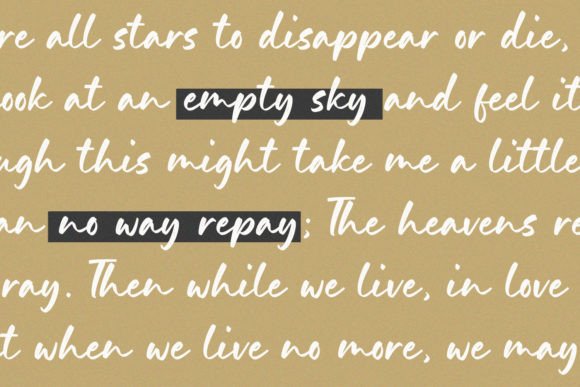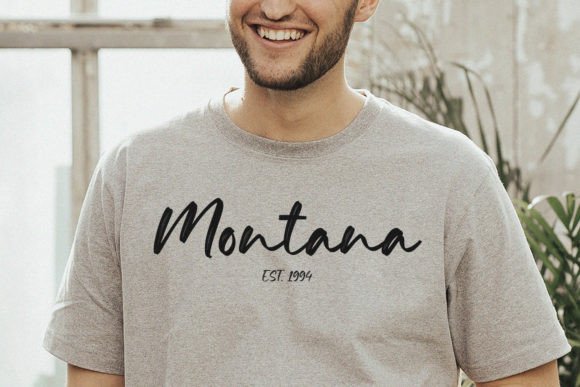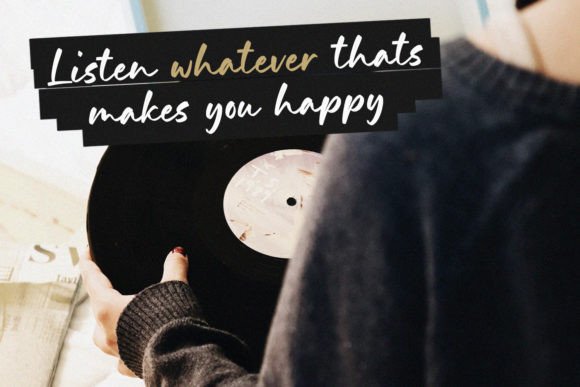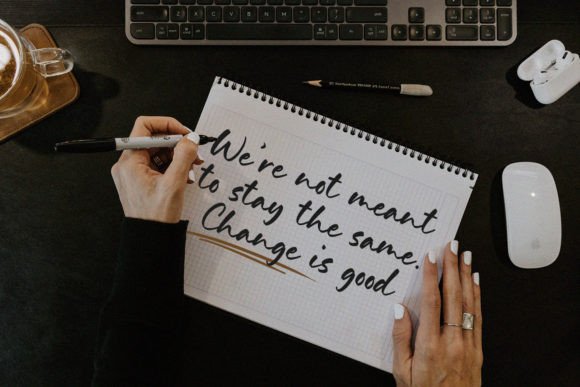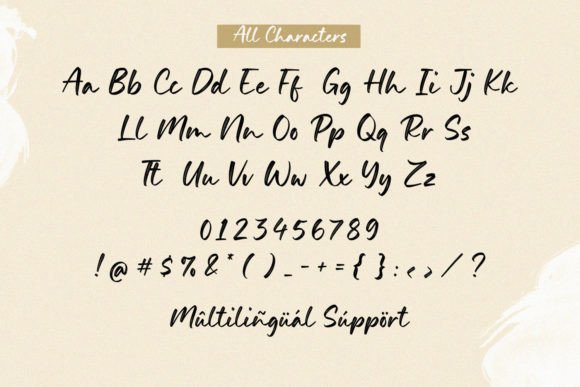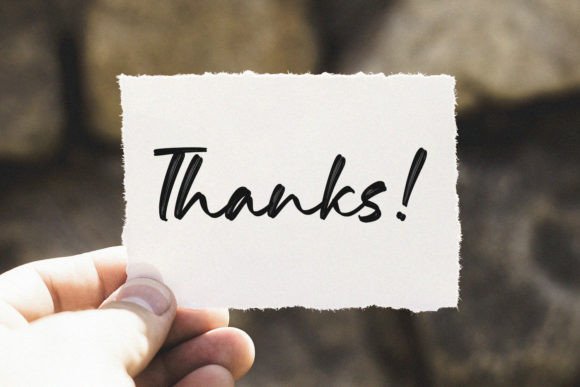
Unleash the Warmth of Summer with the Bright Summer Font
As a designer, there’s something special about capturing the essence of a season in your work. For me, it’s the feeling of walking outside on a warm summer morning, the sun shining bright, and the air filled with the sweet scent of blooming flowers. It’s moments like these that inspire me to create typography that embodies the carefree spirit of the season.
That’s why I’m excited to introduce you to the Bright Summer Font, a beautiful handwritten font designed to bring a touch of warmth and personality to your designs. Whether you’re working on a product packaging project, creating branding materials, or simply want to add a touch of whimsy to your social media posts, this font is sure to delight. With its elegant, cursive script, the Bright Summer Font is a valuable addition to any designer’s toolkit, offering endless possibilities for creative expression.
Bright Summer Font Key Features
• Font Family: Bright Summer Font is a unique, hand-drawn script font designed to evoke feelings of warmth and happiness.
• Character Count: The font family includes over 700 glyphs, including uppercase and lowercase letters, numerals, punctuation, and special characters.
• Unique Characteristics: Bright Summer Font features a fluid, cursive design with subtle variations in letterform and stroke width, giving it a natural, handwritten feel.
Bright Summer Font Review
As a designer, I’ve had the chance to play around with the Bright Summer Font, and here’s my honest take.
• Unique and Quirky: The Bright Summer Font has a distinct, carefree vibe that’s perfect for summer-themed projects or anything that needs a fun and playful touch.
• Customization Options: The font offers a range of styles and variations, making it easy to customize to fit your specific design needs.
• Legibility: Despite its playful nature, the Bright Summer Font remains highly legible, even at smaller font sizes.
• Limited Professional Use: While the Bright Summer Font is great for casual or creative projects, it might not be the best choice for more formal or professional designs, where a more traditional font is often preferred.
• Overuse Risk: The font’s unique style can be overwhelming if used too extensively, so it’s essential to balance its use with other fonts and design elements.
The Bright Summer Font is a fun and versatile addition to any designer’s toolkit. While it may not be suitable for every project, it’s perfect for those looking to add a touch of whimsy and personality to their designs.
Getting the Most Out of the Bright Summer Font
For the best results, use the Bright Summer font in conjunction with bright and pastel colors to create a cohesive and eye-catching design.
Experiment with different font sizes and styles to add emphasis and create visual interest.
The Bright Summer font is perfect for:
Summer-themed designs and branding.
Children’s party invitations and decorations.
Summer-inspired social media posts and graphics.